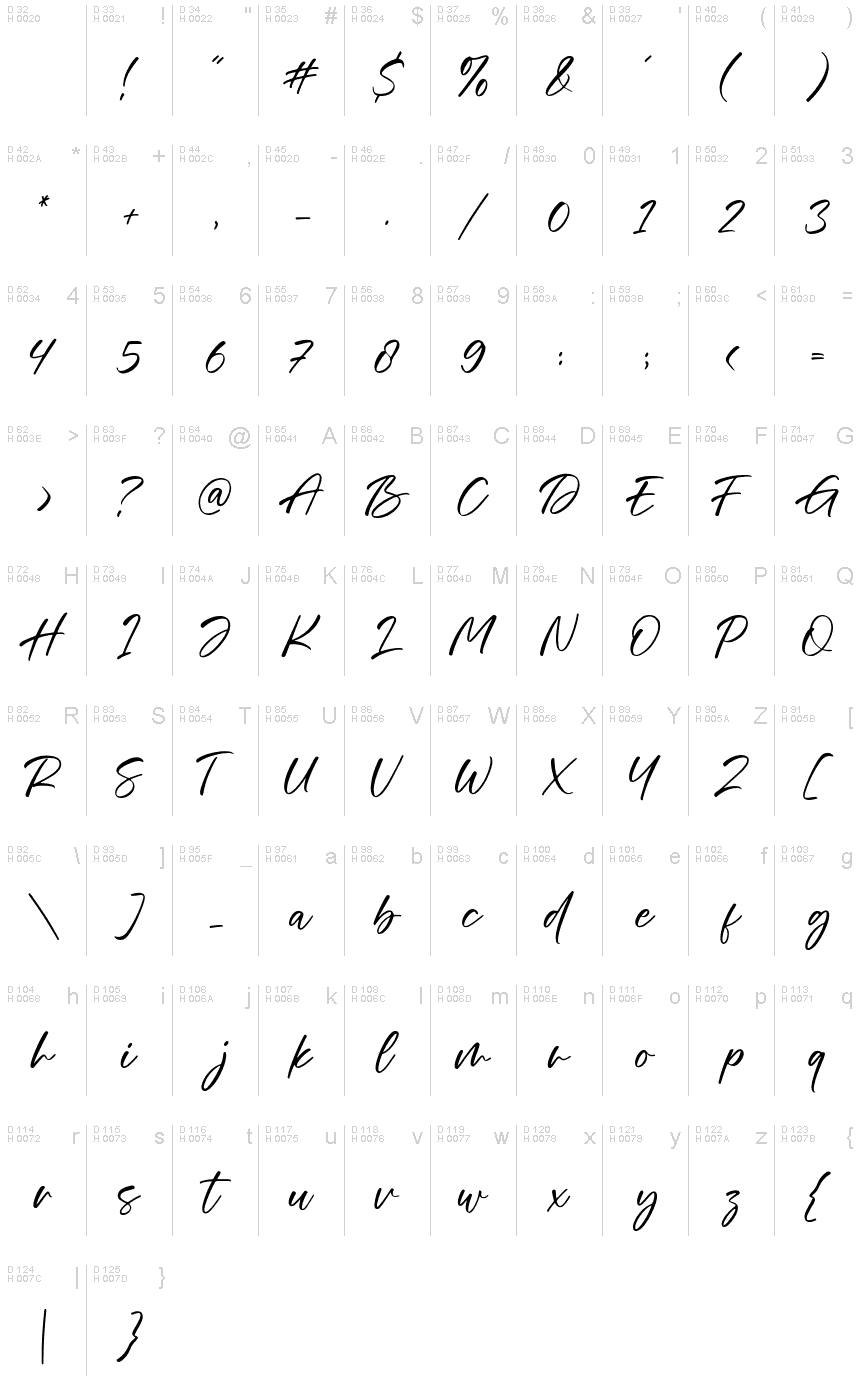
Monthier
Monthier, the exquisite creation of Aestherica Studio, is a mesmerizing handwritten signature font. With its semi-light weight, Monthier exudes elegance and sophistication in every stroke.
Perfect for wedding invitations, branding projects, and luxury packaging designs, this font adds a touch of refinement to any project. Its flowing lines and delicate curves capture the essence of handcrafted beauty, making it ideal for fashion magazines and high-end beauty products.
Let Monthier elevate your designs with its graceful charm and timeless appeal.